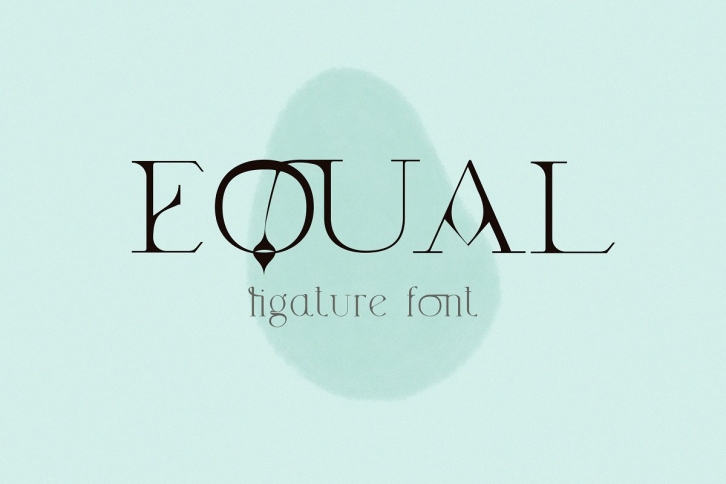
EQUAL. Modern LIGATURES Serif font. Elegante typeface. Branding. Modern Minimalism.
Elegant and original Serif font is ideal for creating logos and Brand Identities.
It works perfect for creating stylish logos, striking editorials, invitations, graphic quotes, and more.